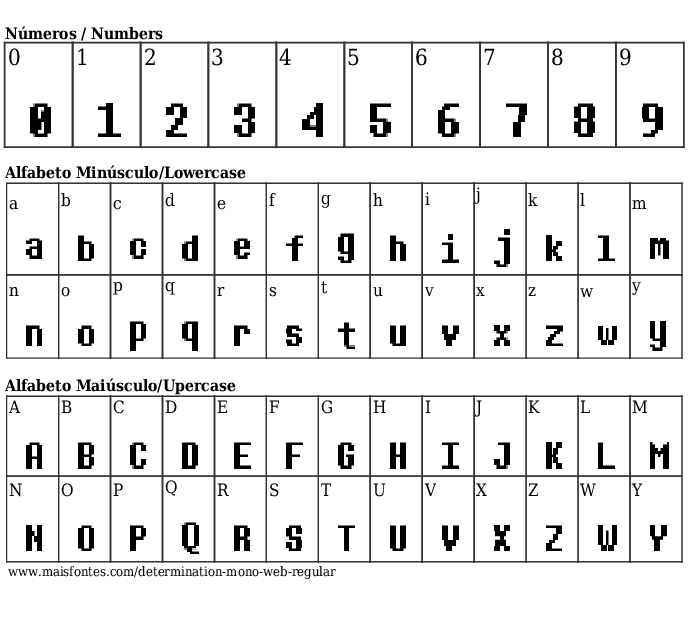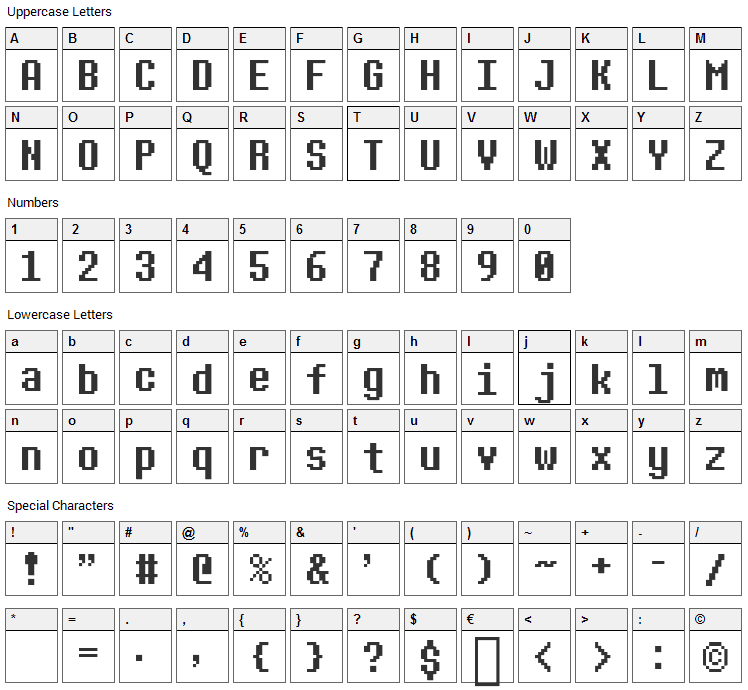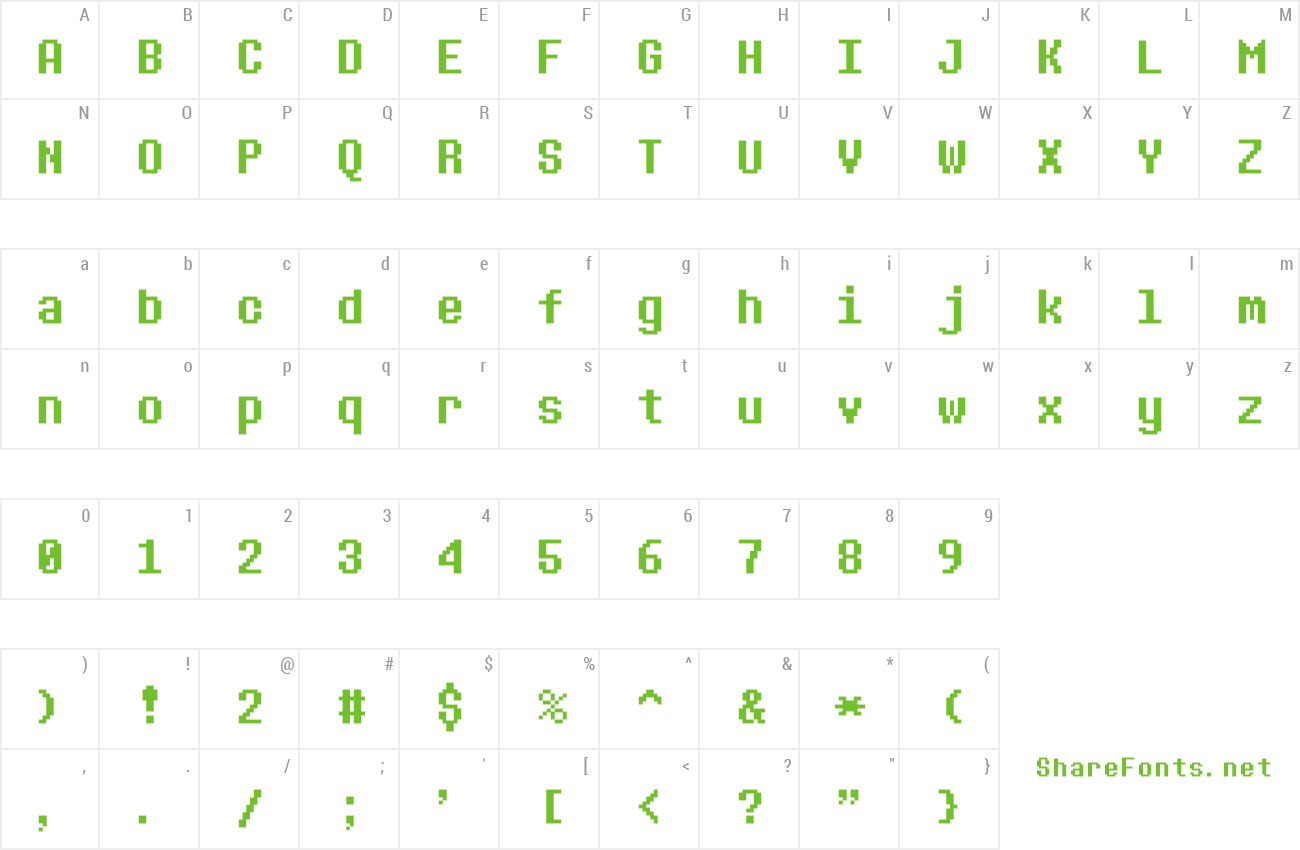
Determination Font Generator
Determination Font Generator - Web this online generator allows users to create custom typography in the style of undertale by inputting their desired text. Simply generate text images and share them. Web generate cool and amazing fonts by using determination font generator.
Simply generate text images and share them. Web generate cool and amazing fonts by using determination font generator. Web this online generator allows users to create custom typography in the style of undertale by inputting their desired text.
Simply generate text images and share them. Web this online generator allows users to create custom typography in the style of undertale by inputting their desired text. Web generate cool and amazing fonts by using determination font generator.
Undertale Fonts / Undertale InGame HUD Font FontStruct If you want
Web this online generator allows users to create custom typography in the style of undertale by inputting their desired text. Web generate cool and amazing fonts by using determination font generator. Simply generate text images and share them.
Determination шрифт
Simply generate text images and share them. Web generate cool and amazing fonts by using determination font generator. Web this online generator allows users to create custom typography in the style of undertale by inputting their desired text.
Simply generate text images and share them. Web this online generator allows users to create custom typography in the style of undertale by inputting their desired text. Web generate cool and amazing fonts by using determination font generator.
Web this online generator allows users to create custom typography in the style of undertale by inputting their desired text. Simply generate text images and share them. Web generate cool and amazing fonts by using determination font generator.
Simply generate text images and share them. Web generate cool and amazing fonts by using determination font generator. Web this online generator allows users to create custom typography in the style of undertale by inputting their desired text.
Web generate cool and amazing fonts by using determination font generator. Simply generate text images and share them. Web this online generator allows users to create custom typography in the style of undertale by inputting their desired text.
Determination Mono Web Regular font
Simply generate text images and share them. Web this online generator allows users to create custom typography in the style of undertale by inputting their desired text. Web generate cool and amazing fonts by using determination font generator.
Web generate cool and amazing fonts by using determination font generator. Web this online generator allows users to create custom typography in the style of undertale by inputting their desired text. Simply generate text images and share them.
Simply Generate Text Images And Share Them.
Web this online generator allows users to create custom typography in the style of undertale by inputting their desired text. Web generate cool and amazing fonts by using determination font generator.